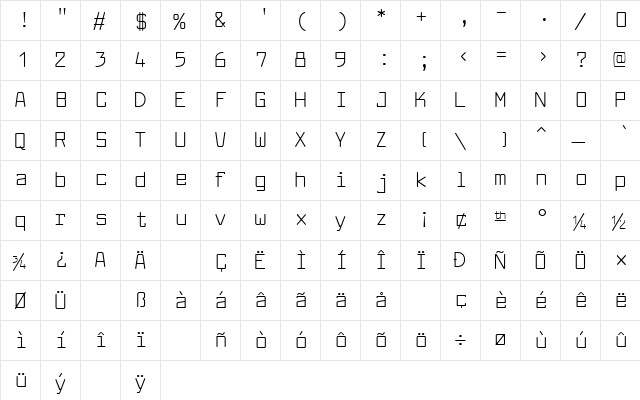
Larabiefont Regular
Design Context for Larabiefont Typeface
Larabiefont offers clean, dependable letterforms without strong stylistic allegiance, making it a practical choice for designers who need flexibility.